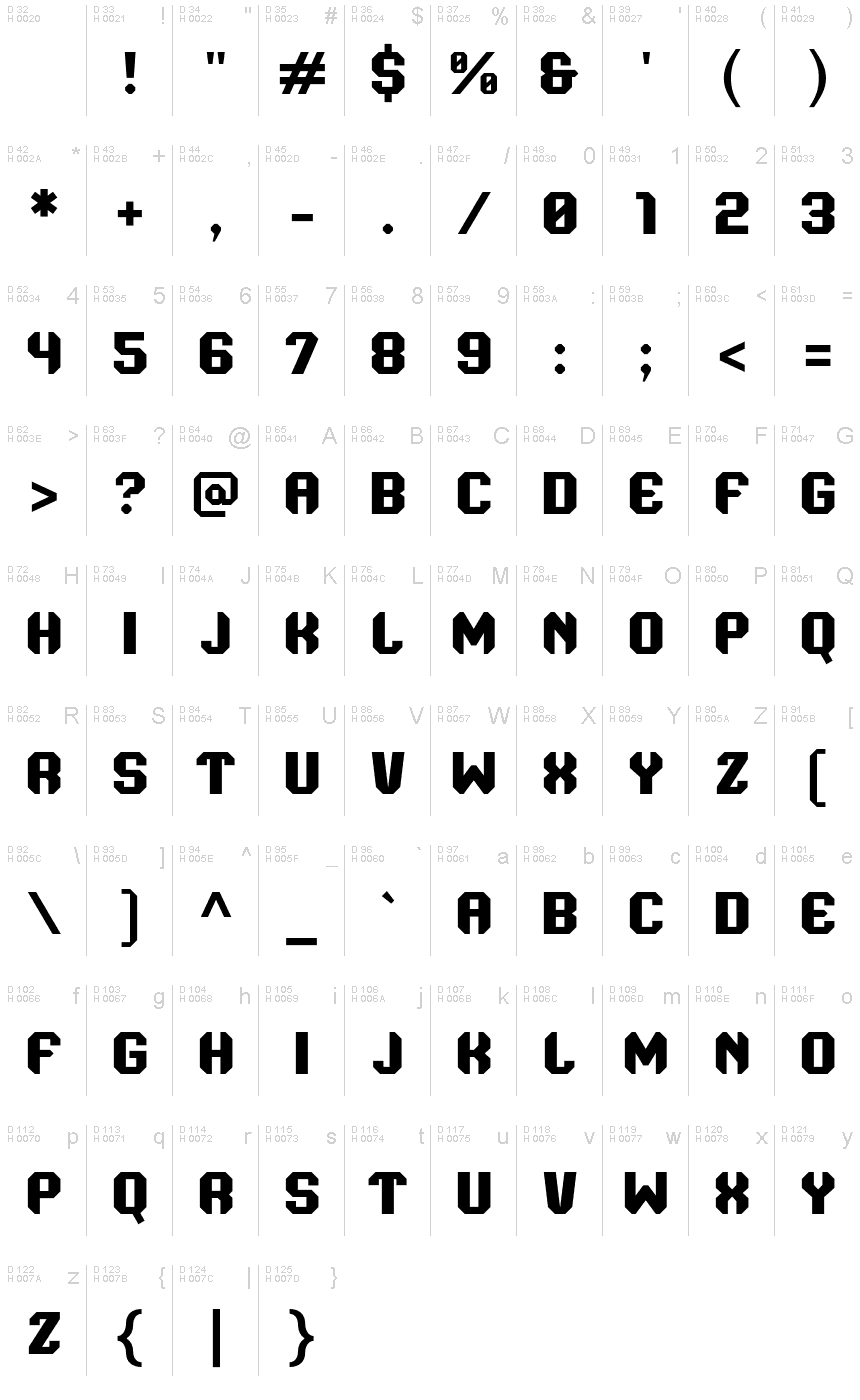
SendBox-Regular
Send Box by Drizy Studio is a futuristic display font that adds a high-tech touch to any project. With an extra-bold weight and techno style, this font demands attention and commands authority. Its unique design makes it perfect for branding, advertising, or any project that requires a bold statement. Use Send Box for your next tech startup logo, video game title screen, or even a sci-fi movie poster. Whether you're looking to make a bold statement or add some edge to your work, Send Box will not disappoint.